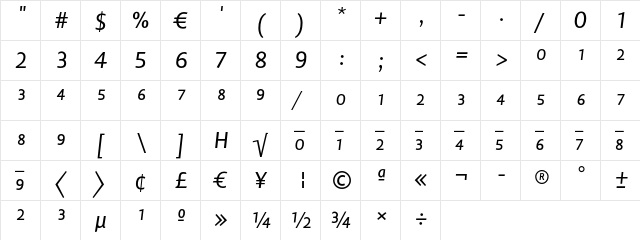
Lisboa Sans Expert Italic
Design Context for Lisboa Sans Expert Typeface
Lisboa Sans Expert offers clean, dependable letterforms without strong stylistic allegiance, making it a practical choice for designers who need flexibility. The slanted form adds forward momentum and visual energy.
Pro Tip: Try Lisboa Sans Expert for annotation and caption copy alongside an upright companion — the contrast in angle creates a dynamic but ordered typographic system.